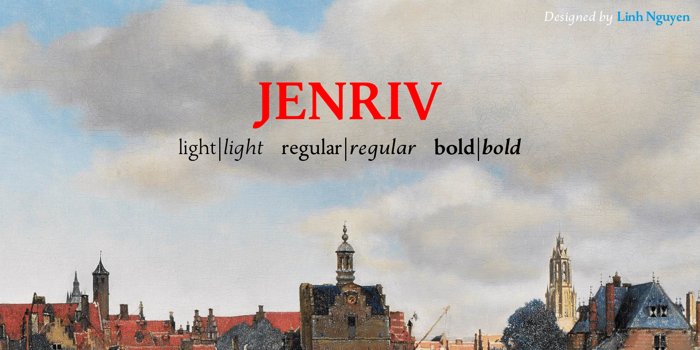
Jenriv Font
More info from Linh N Type
This font is Titling version, which contains all-caps letters.
It also supports extended Latin languages, advanced symbols.